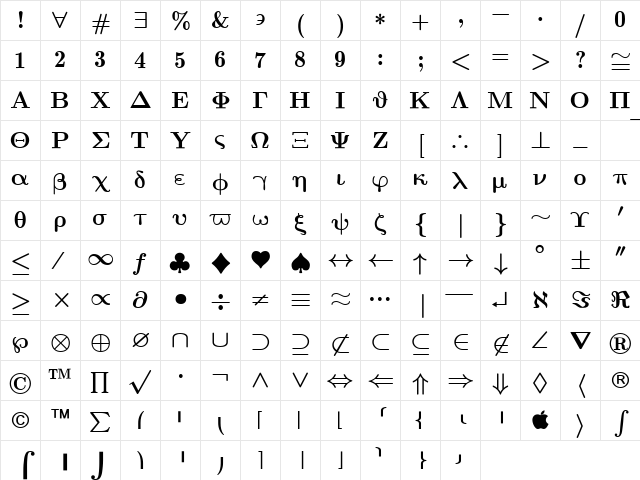
Euclid Symbol Bold
Foundry: Design Science, Inc
Designer: Donald Knuth, Richard Kinch, Paul Topping, Jim King
Euclid Symbol Family
Design Context for Euclid Symbol
Euclid Symbol is a composed and adaptable typeface that performs quietly and consistently across a wide range of design contexts. Its bold stroke weight gives it real presence on the page.